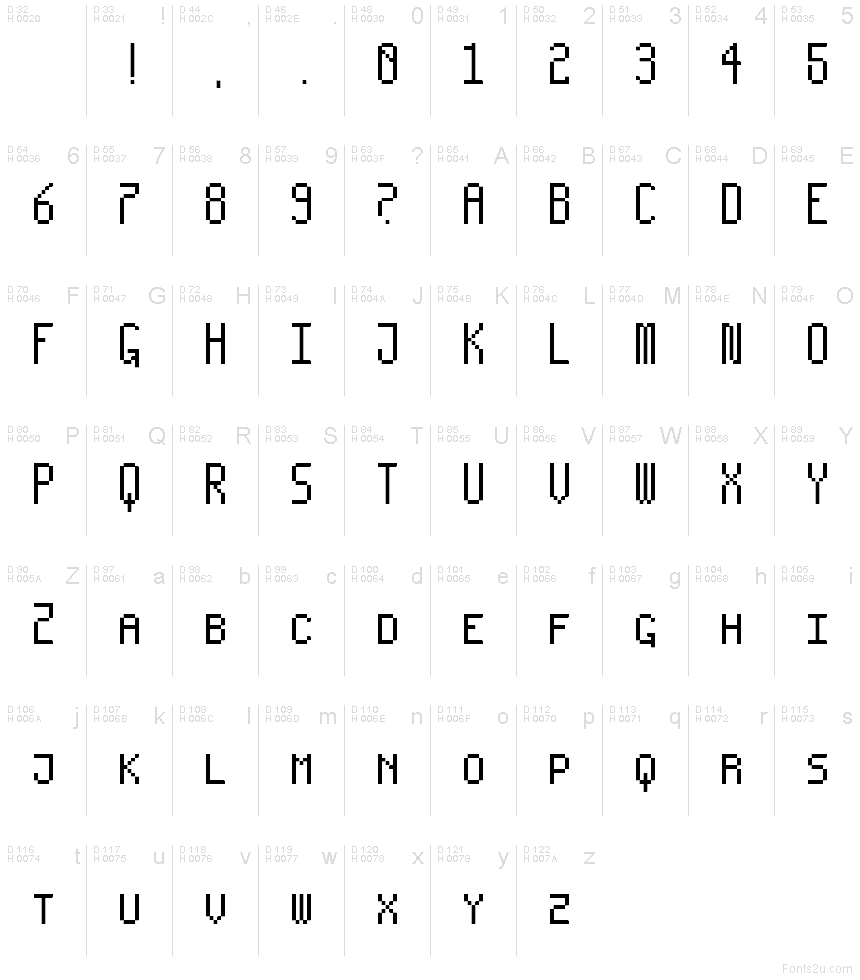
Dansk
Dansk font by Luca Prieto Bdez is a condensed pixelated bitmap typeface with a wonderful minimalist monospace structure. Its retro video game aesthetics adds a real digital-inspired vibe that can surely enrich modern tech or gaming projects. The medium-thin strokes of the letterforms are dense and consistent which contributes to high legibility and readability.